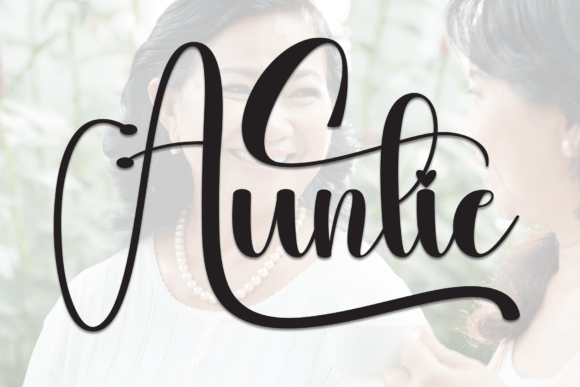
The Elegant Charm of Auntie Font: A Designer’s New Best Friend
I still remember the design project that led me to discover Auntie Font. I was working on a wedding invitation for a close friend, and I was struggling to find the perfect font that exuded elegance and sophistication. The client wanted something that would make the invitation feel personal and special, but not too over-the-top. After hours of scouring font libraries and design blogs, I stumbled upon Auntie Font, and it was love at first sight! ✨
A Personal Review of Auntie Font
Auntie Font is a stylish handwritten script font that has become a staple in my design toolkit. Here’s what I love about it:
- ✨ Fluid strokes and natural flow create a captivating, sophisticated look
- ✅ Perfect for adding a personal touch to invitations, branding, or social media
- ✅ Warm and elegant feel that’s perfect for wedding invitations, baby shower announcements, and other special occasions
Of course, no font is perfect, and Auntie Font has a few quirks:
- 🤔 Some characters may not work well in all design contexts (e.g., using the font for body text in a lengthy article)
- ⚠️ Limited availability of certain OpenType features in certain design software
The Story Behind Auntie Font
Auntie Font was designed by a talented type designer who’s passionate about creating beautiful, elegant fonts. According to the designer’s inspiration story, Auntie Font was created as a tribute to the classic script fonts of the past, with a modern twist. The designer wanted to create a font that would evoke a sense of warmth and sophistication, perfect for special occasions and everyday design projects.
| Font Name | Auntie Font |
| What is Auntie Font best used for? | Auntie Font is perfect for adding a personal touch to invitations, branding, social media, and other design projects where a touch of elegance and sophistication is desired. |
| Is Auntie Font suitable for body text? | While Auntie Font is highly legible, it’s best used for headlines, titles, and short paragraphs. For longer body text, a more traditional serif or sans-serif font might be more suitable. |